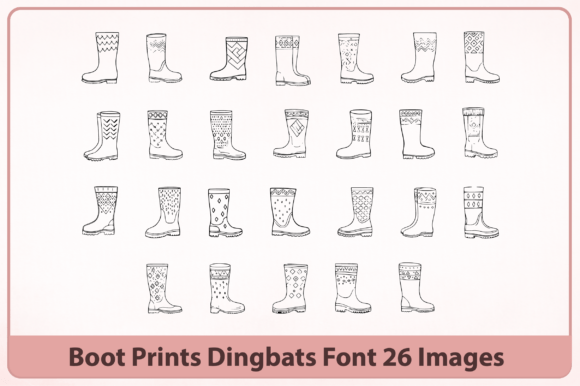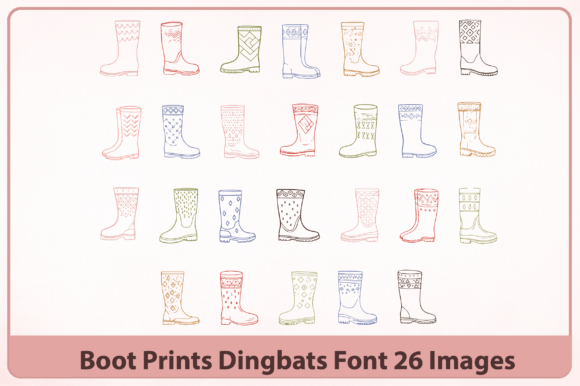
Boot Prints Font: Adding a Splash of Fun to Your Designs with Bootiful Patterns
Are you tired of using the same old fonts in your designs? Do you want to add a touch of whimsy and fun to your projects? Look no further than Bootiful Patterns, a unique dingbat font that combines the charm of rain boots with geometric flair. This innovative font is perfect for designers, crafters, and anyone looking to add a kick of fun to their work.
What is Bootiful Patterns?
Bootiful Patterns is a dingbat font that features 26 unique rain boot designs, each with a bold, geometric twist. The font is designed to bring a splash of fun and personality to your projects, whether you’re working on a rainy-day themed design, a typography project, or simply want to add some visual interest to your work.
Each character in the font is carefully crafted to resemble a rain boot, complete with intricate details and a playful vibe. The boots are designed to be versatile, making them perfect for a wide range of applications, from stickers and logos to digital crafts and more.
Key Features of Bootiful Patterns
• 26 unique rain boot designs: Each character in the font is a one-of-a-kind rain boot design, ensuring that your projects stand out from the crowd.
• Bold, geometric twist: The boots feature a bold, geometric style that adds a touch of modernity to your designs.
• Perfect for a variety of projects: From stickers and logos to digital crafts and more, Bootiful Patterns is versatile enough to be used in a wide range of applications.
Who is Bootiful Patterns for?
Bootiful Patterns is perfect for:
• Designers: Add a touch of whimsy and fun to your designs with this unique font.
• Crafters: Use Bootiful Patterns to create custom stickers, washi tape, and other craft supplies.
• Small business owners: Stand out from the competition with custom branding and marketing materials featuring Bootiful Patterns.
• Anyone looking for a fun font: Whether you’re a student, a hobbyist, or simply someone who loves to create, Bootiful Patterns is a great addition to your font library.
3. Customize to your heart’s content: Experiment with different colors, sizes, and effects to make the font your own.
Here are a few tips and inspiration ideas to get you started with Bootiful Patterns:
• Mix and match: Combine Bootiful Patterns with other fonts and design elements to create a unique look.
• Play with color: Experiment with different colors and gradients to add depth and interest to your design.
• Use in a themed project: Create a rainy-day themed design, a wellie-inspired craft, or a project that celebrates the joy of rain boots.
With Bootiful Patterns, the possibilities are endless. Whether you’re a seasoned designer or a crafty hobbyist, this font is sure to bring a splash of fun and personality to your projects. So why wait? Step into style with Bootiful Patterns and make a statement with your designs!